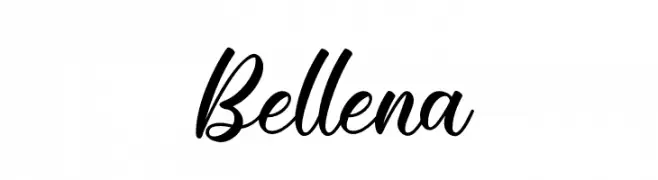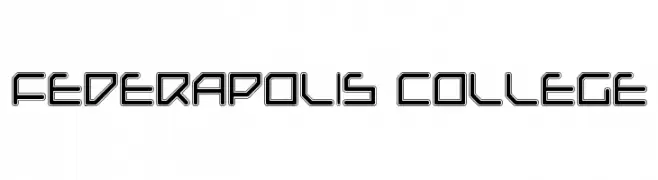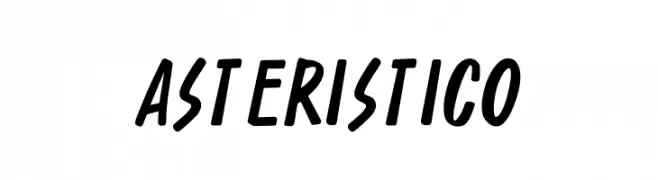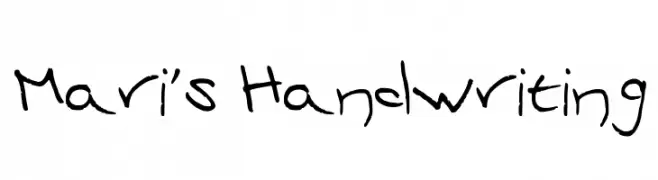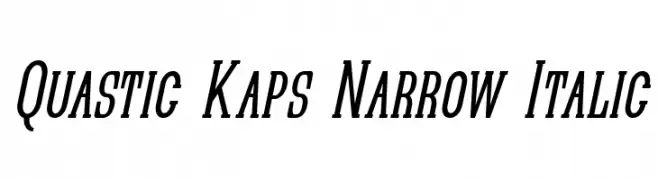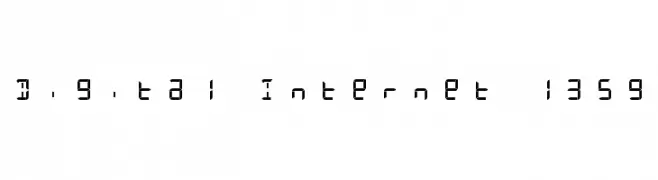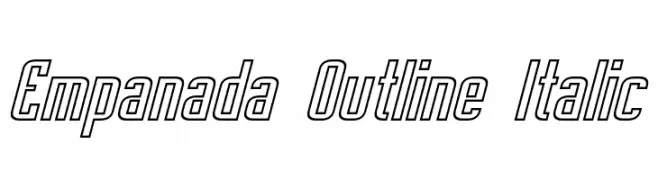
Elegant script font with a handwritten style.
A futuristic, geometric font with bold outlines and a modern aesthetic.
A bold, handwritten-style font with a dynamic and playful character.
A casual, handwritten font with an authentic, personal touch.
A narrow, italicized font with medium contrast and a modern style.
A modern, geometric font with a futuristic and sleek design.
A bold, outlined, italic font with a modern and dynamic style.